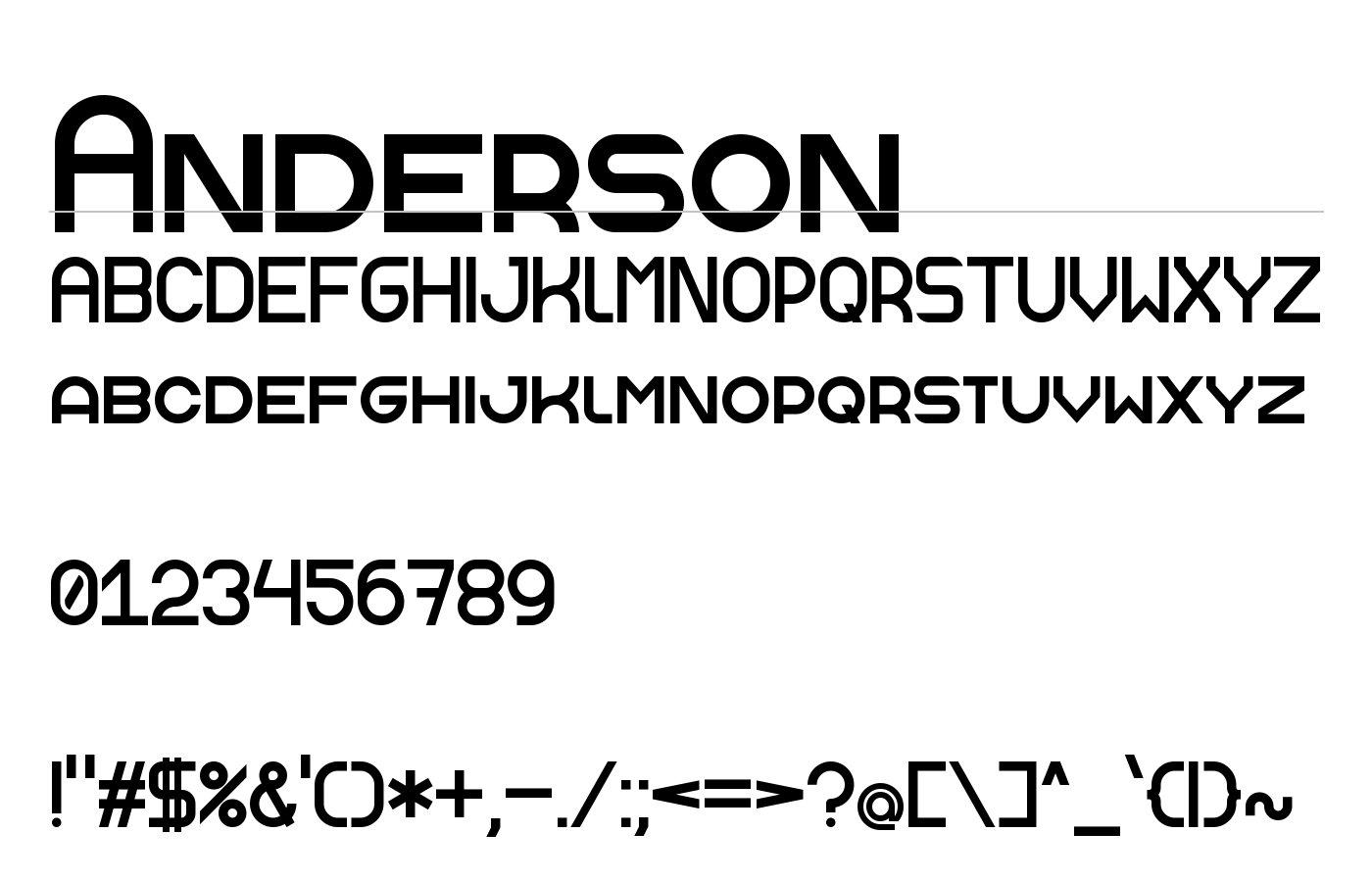
Anderson is a modern sans serif font characterized by its clean, geometric shapes and a distinct, futuristic style. With a medium weight, normal width, and uniform stroke contrast, it features unique letterforms with a slightly squared touch, making it feel sleek and contemporary. This font works great for tech brands, headlines, and editorial designs seeking a sharp, innovative look that combines clarity with a bold personality.
Anderson Font
About Anderson Font